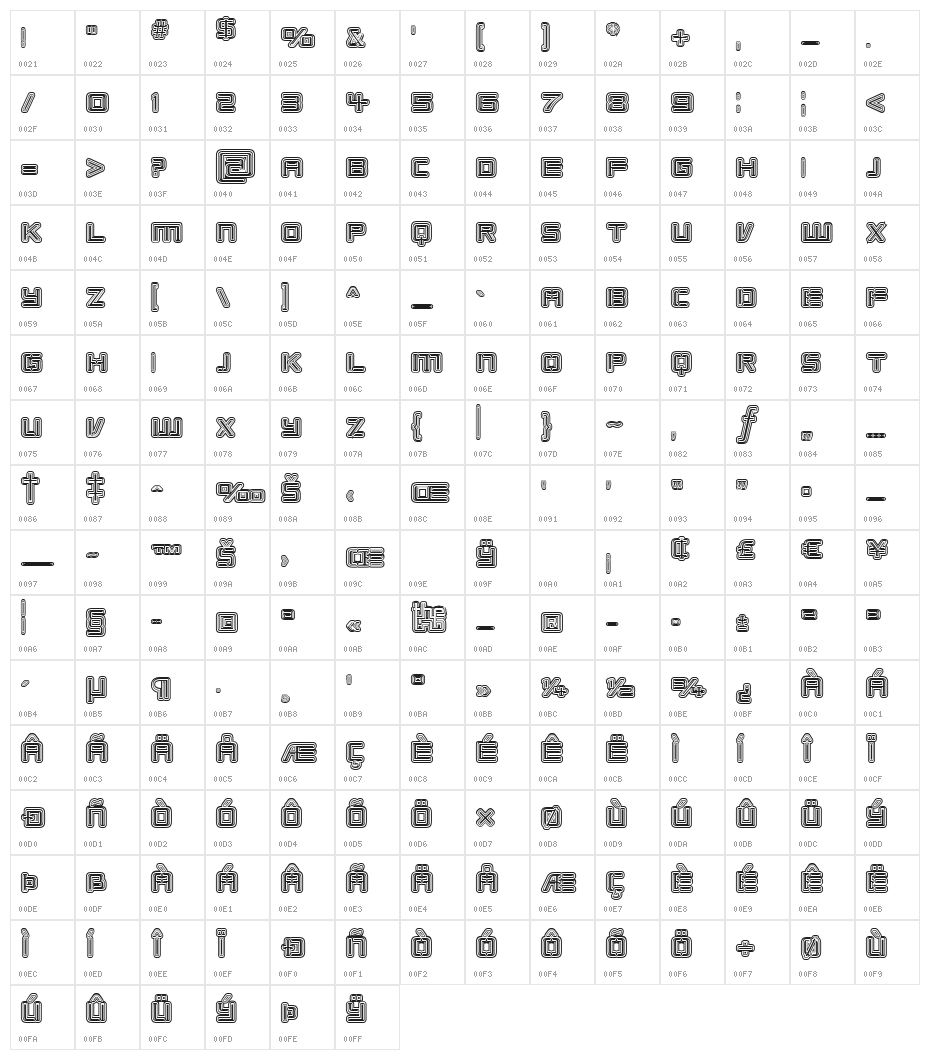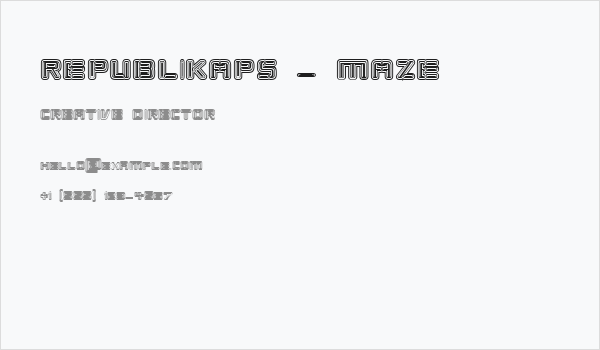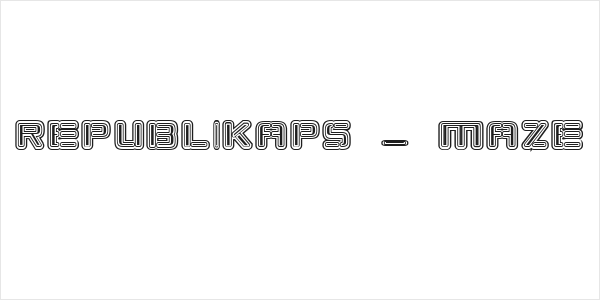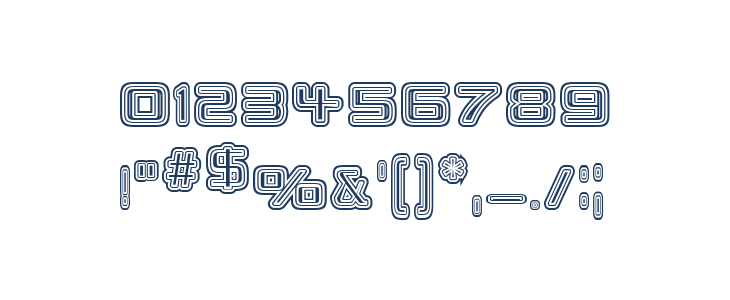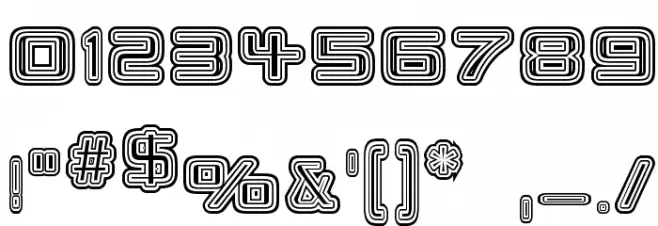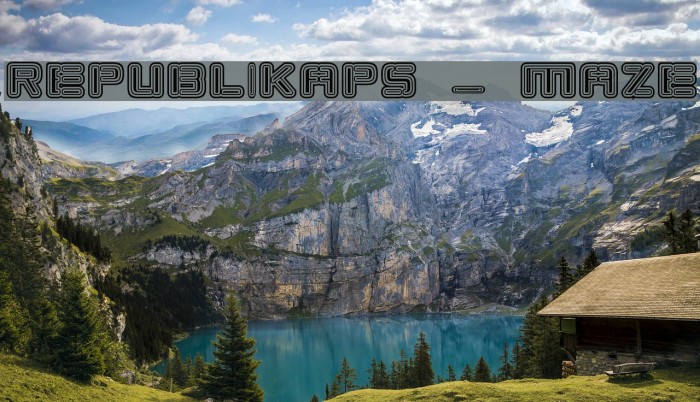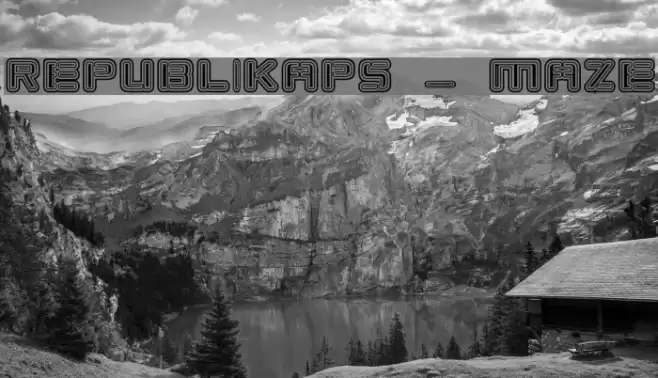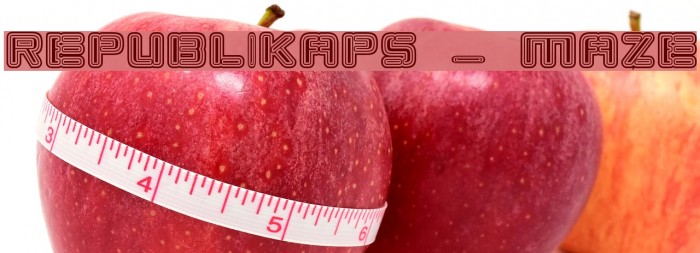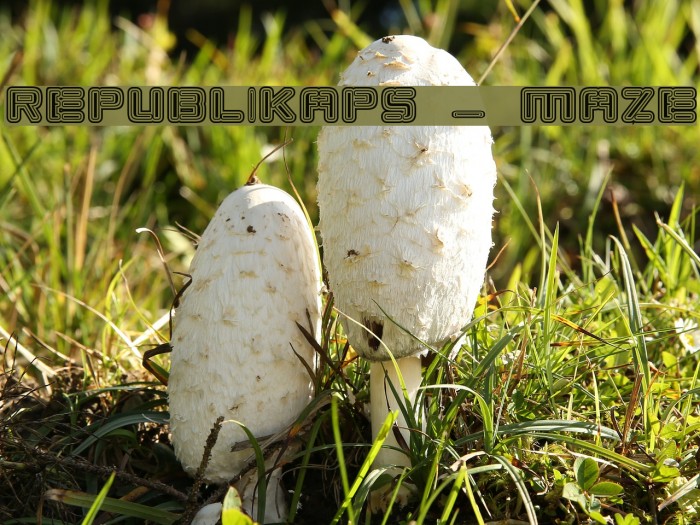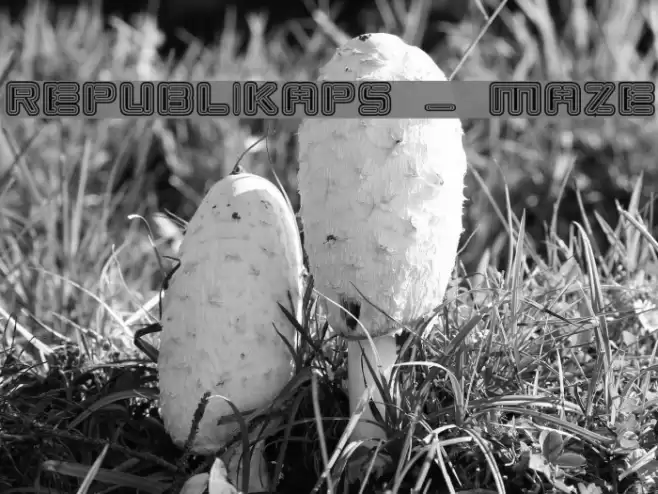
Republikaps - Maze Font
Republikaps - Maze Description
This font features a unique maze-like design with bold, interconnected lines forming each character. The letters and numbers are outlined with multiple layers, creating a three-dimensional effect. Its geometric and structured appearance gives it a modern and futuristic feel. The characters are evenly spaced, maintaining a consistent width throughout. This font stands out with its intricate patterns, making it ideal for eye-catching designs.
| Proposed Projects | Ideal for branding, posters, album covers, and any project requiring a striking, modern aesthetic. |